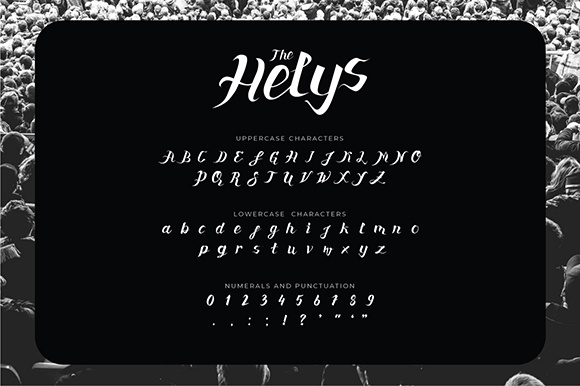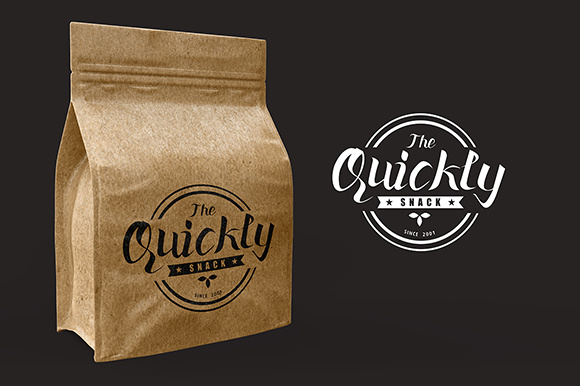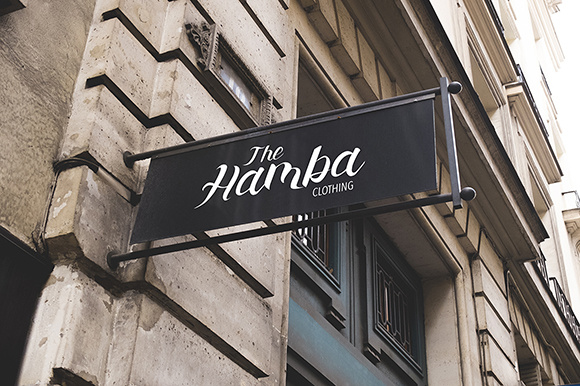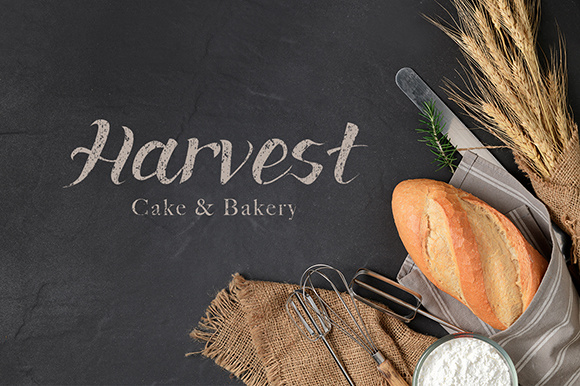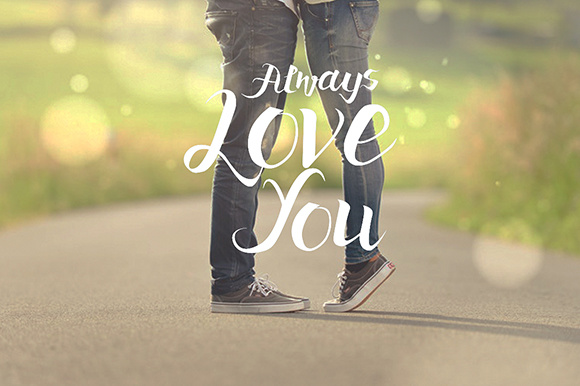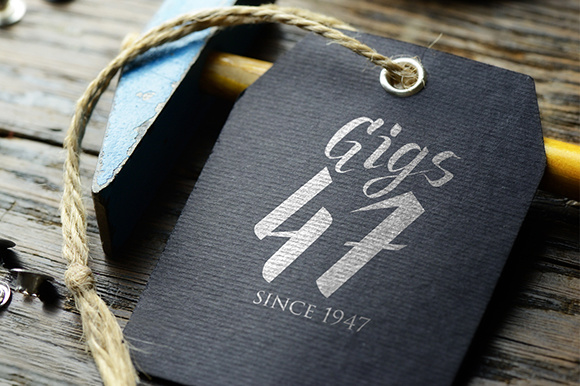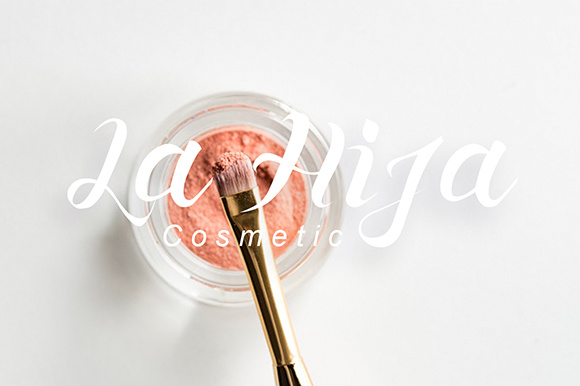
The Helys Font
About The Helys Font
The Helys is a casual script font inspired by urban fashion. Its great for various purposes such as: logotypes, printed quotes, invitations, cards, product packaging, headers, letterheads, posters, apparel and much more!